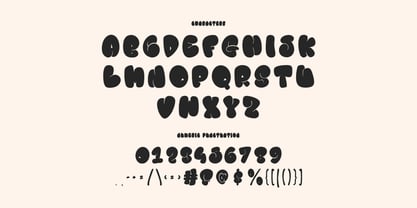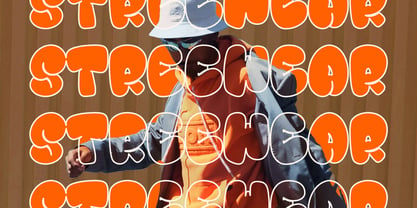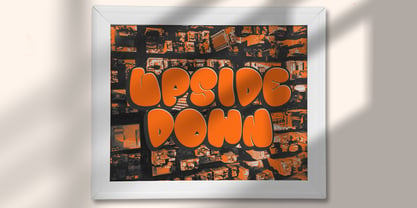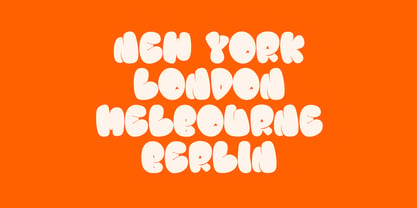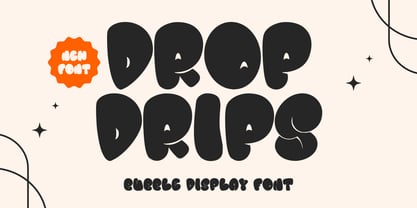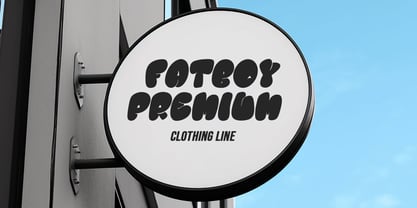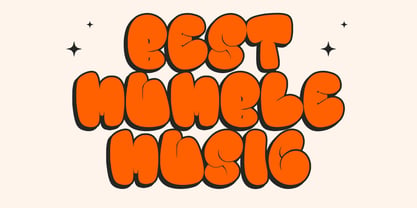
MC Dropdrips
by Maulana Creative
The MC Dropdrips Font Family was designed by Gilang Maulana and published by Maulana Creative. MC Dropdrips contains 1 styles. More about this family
Dropdrips is a bubble display handwritten font. To give you an extra creative work Dropdrips font support multilingual more than 100+ language. This font is good for logo design, Social media, Movie Titles, Books Titles, a short text even a long text letter and good for your secondary text font with sans or serif. Make a stunning work with Dropdrips font.